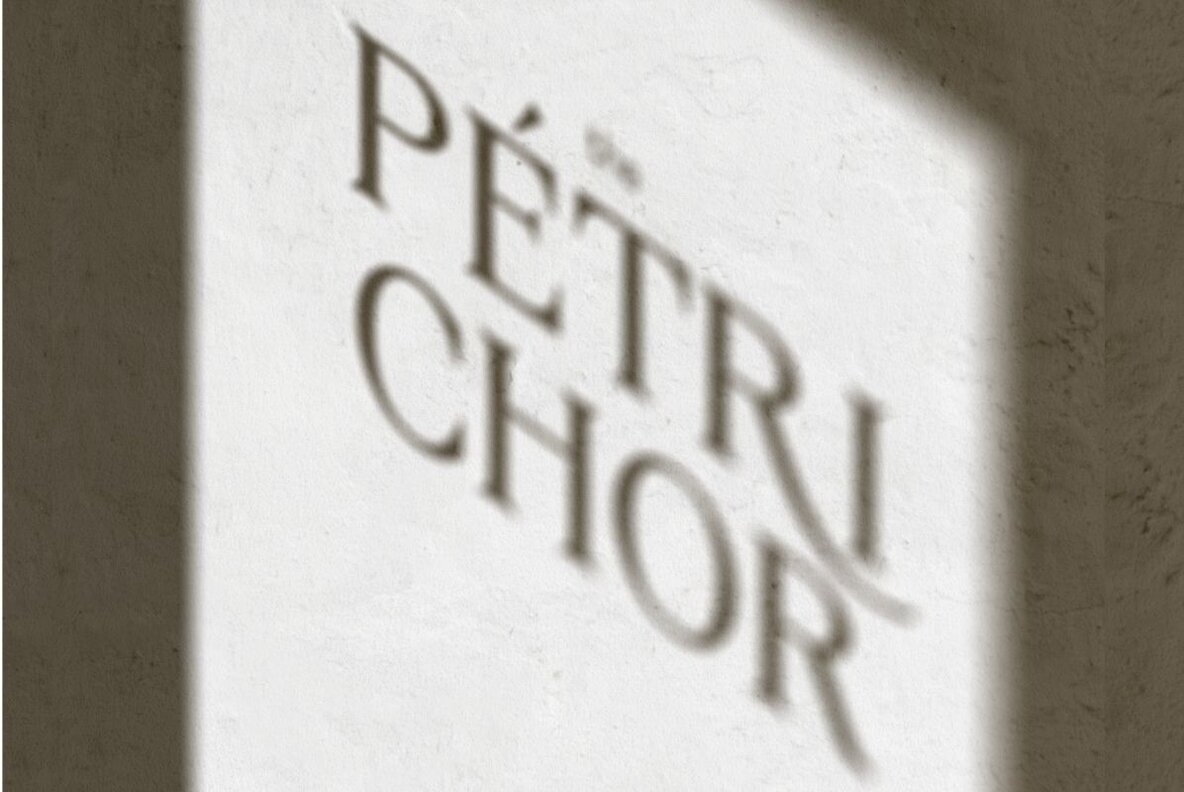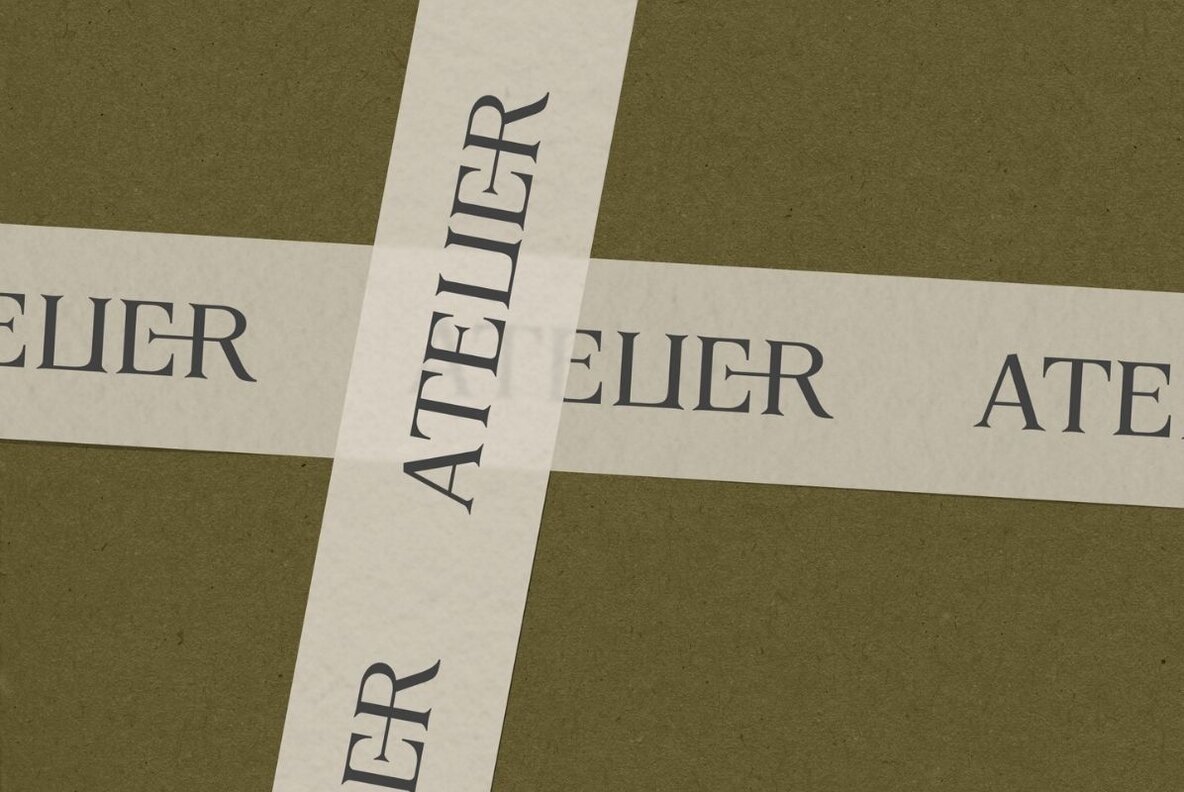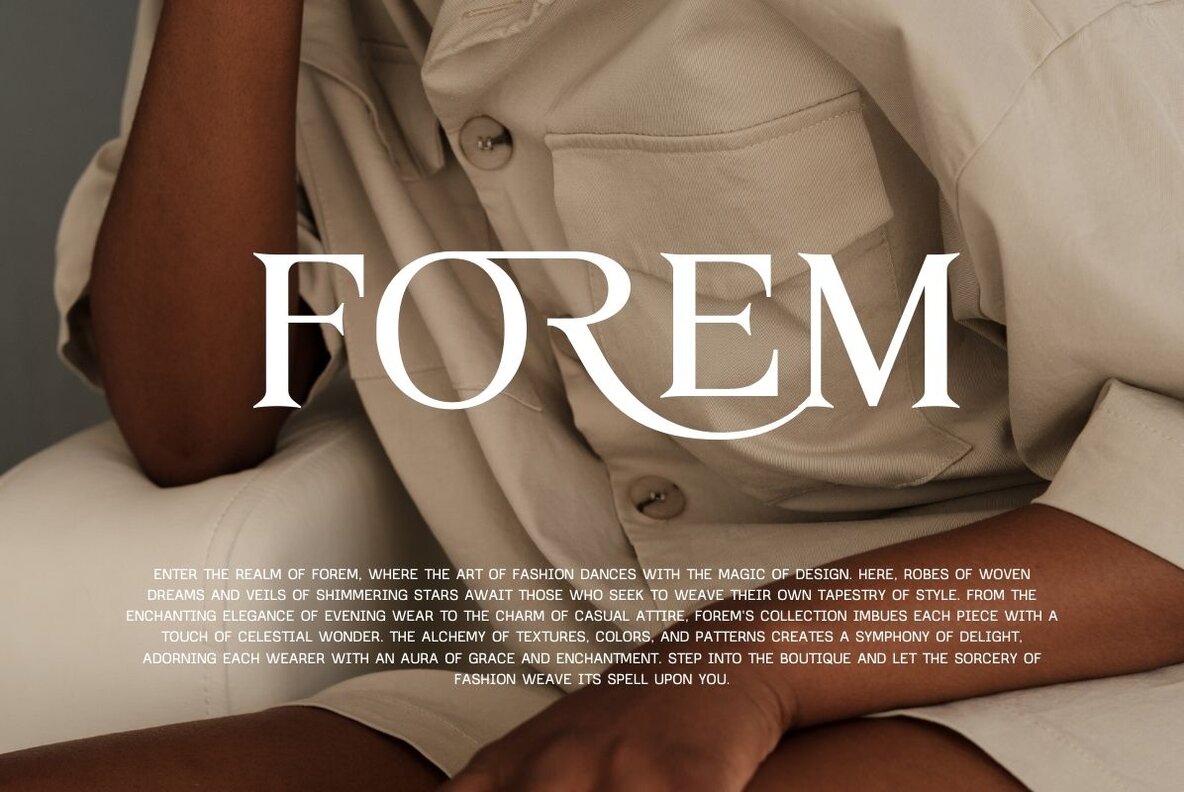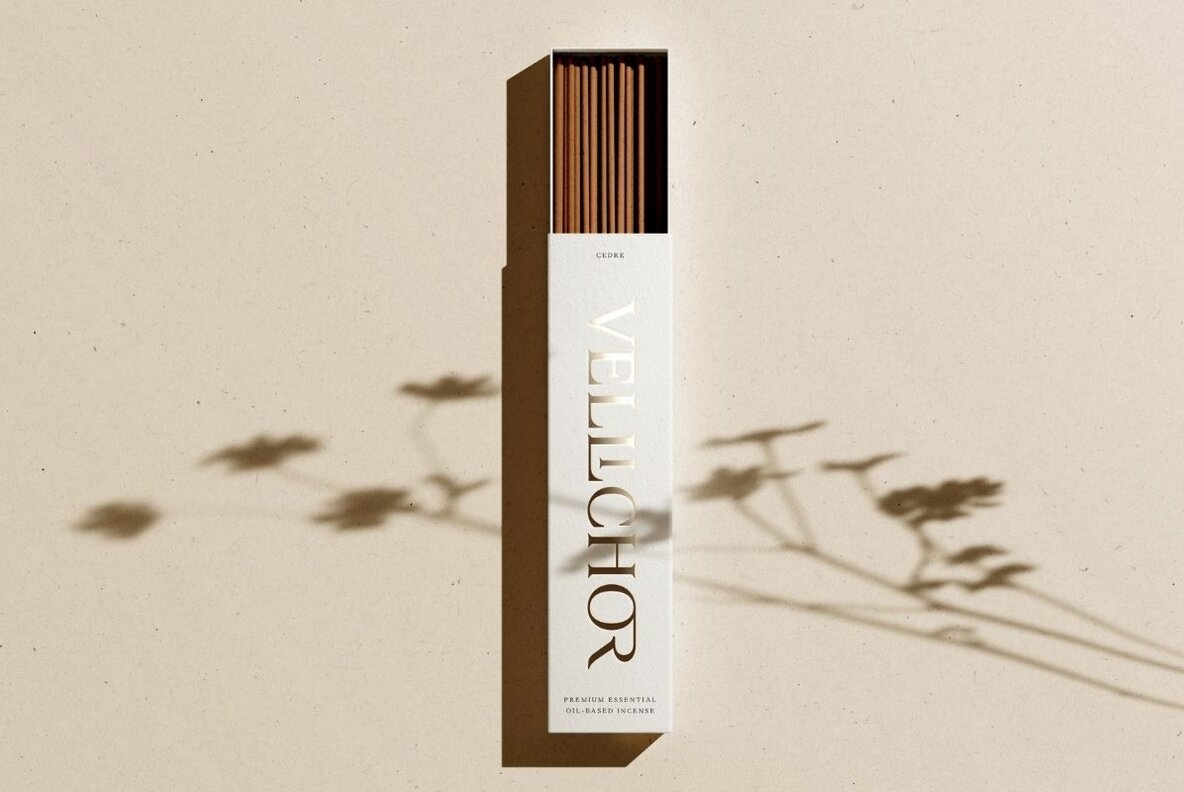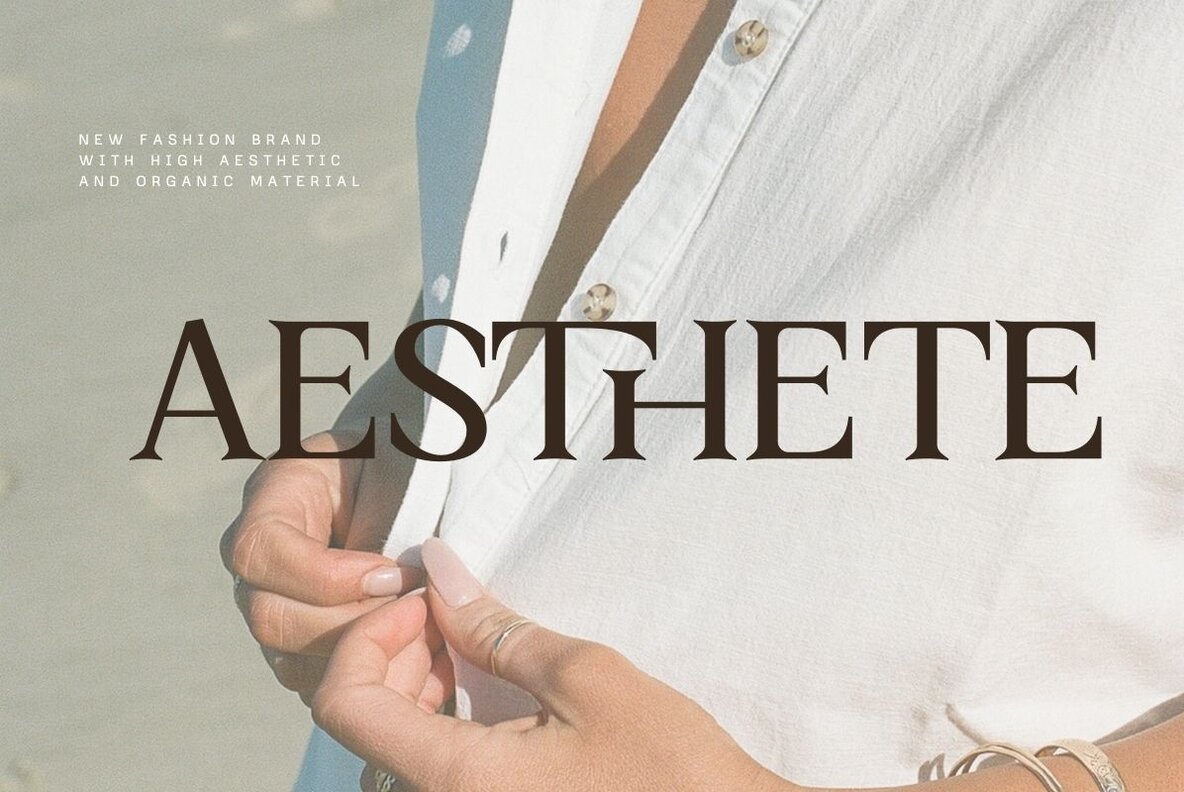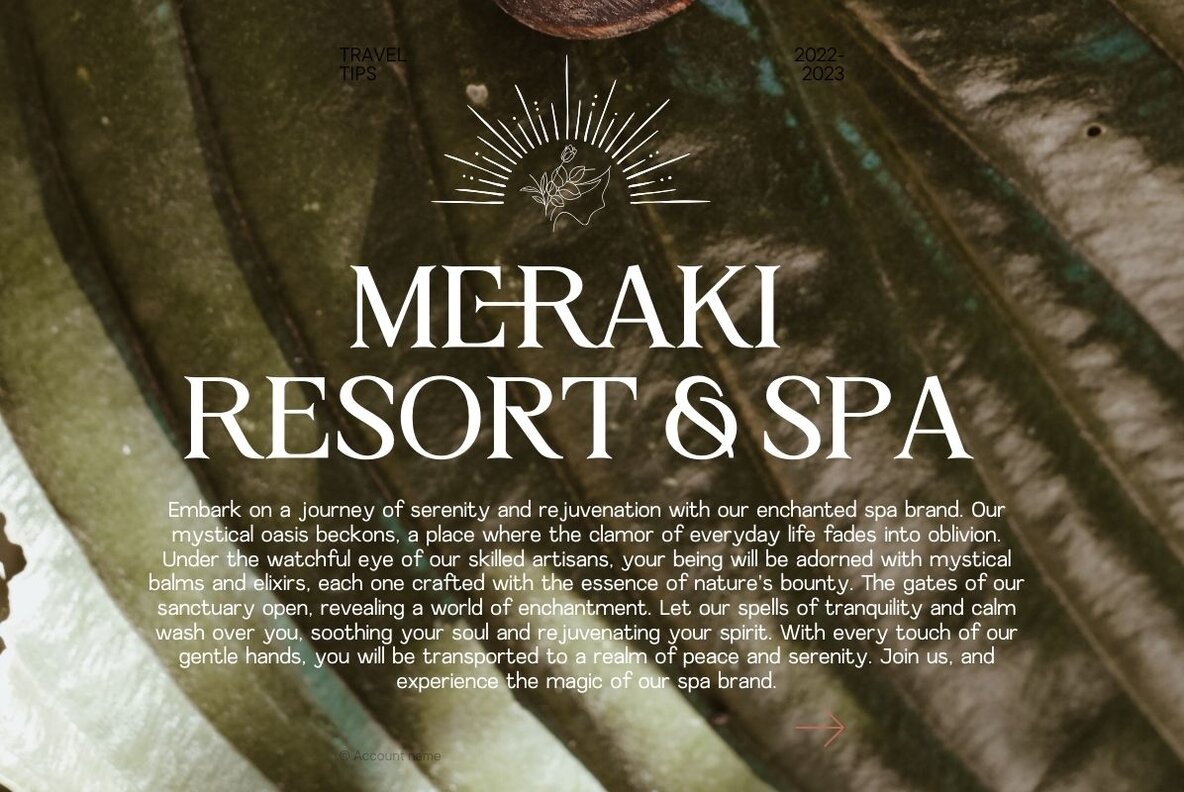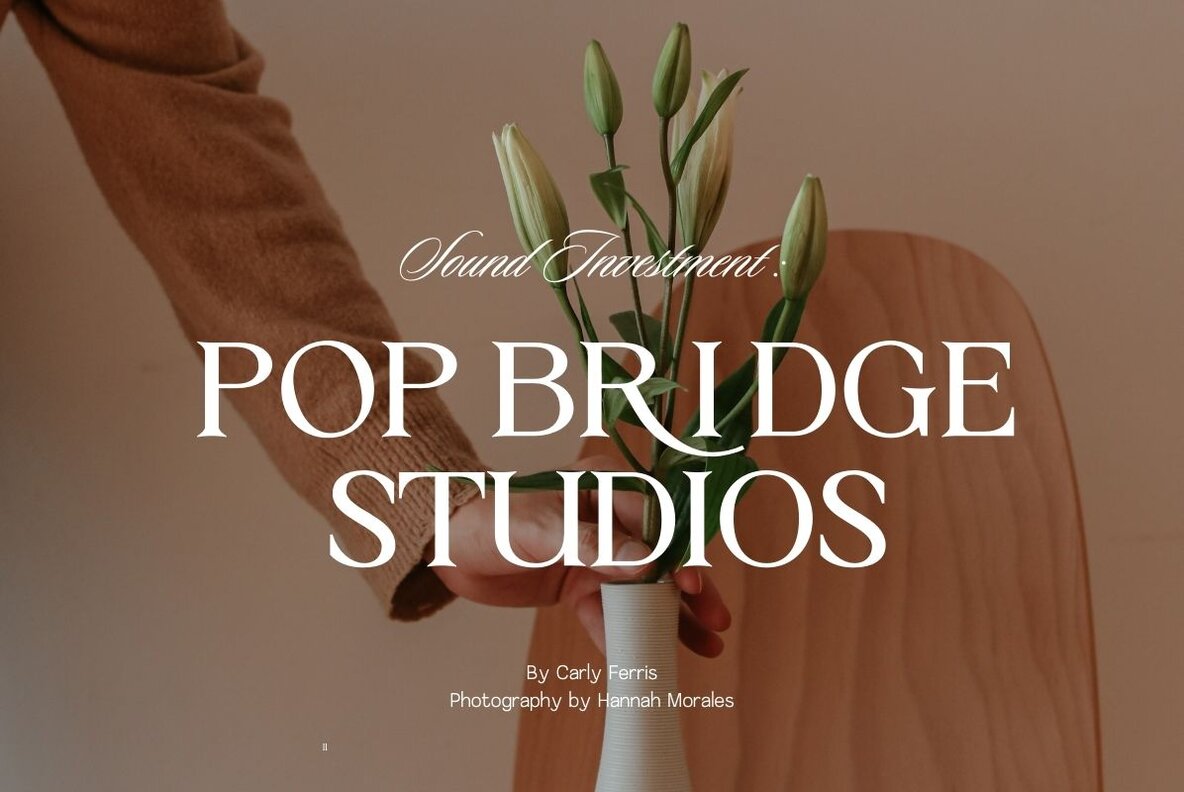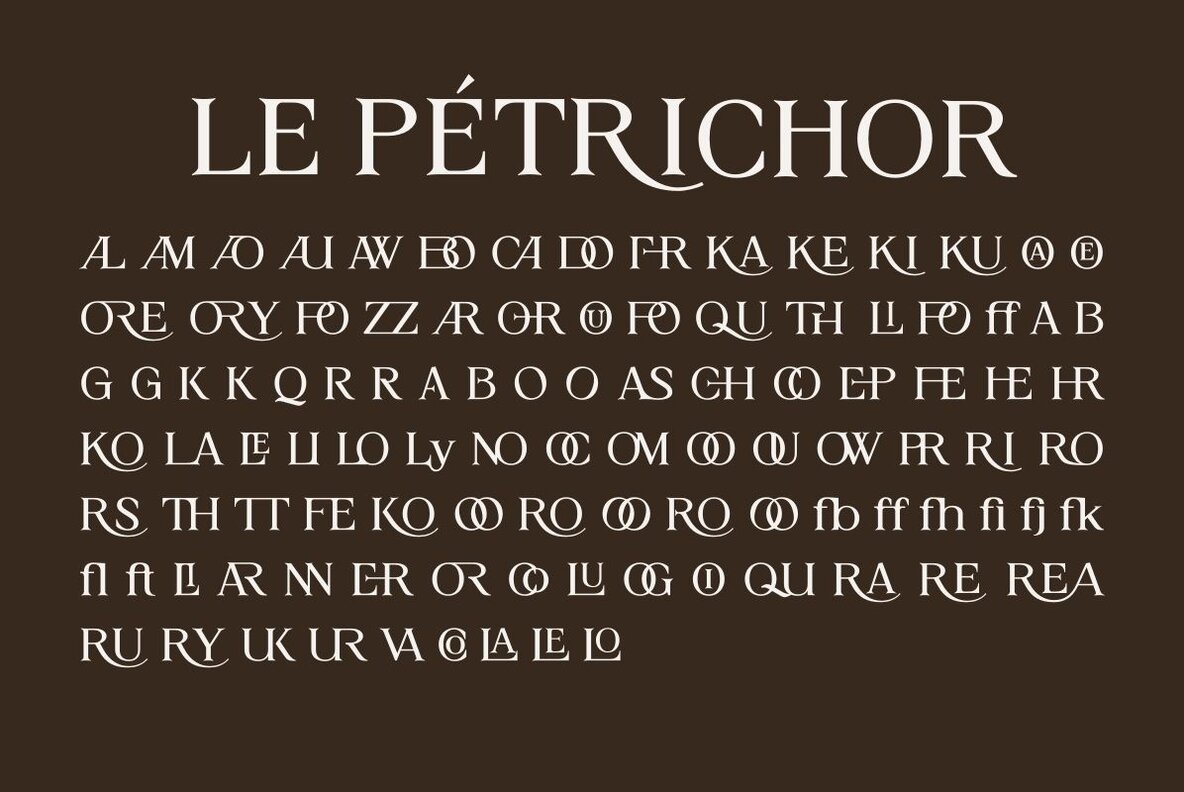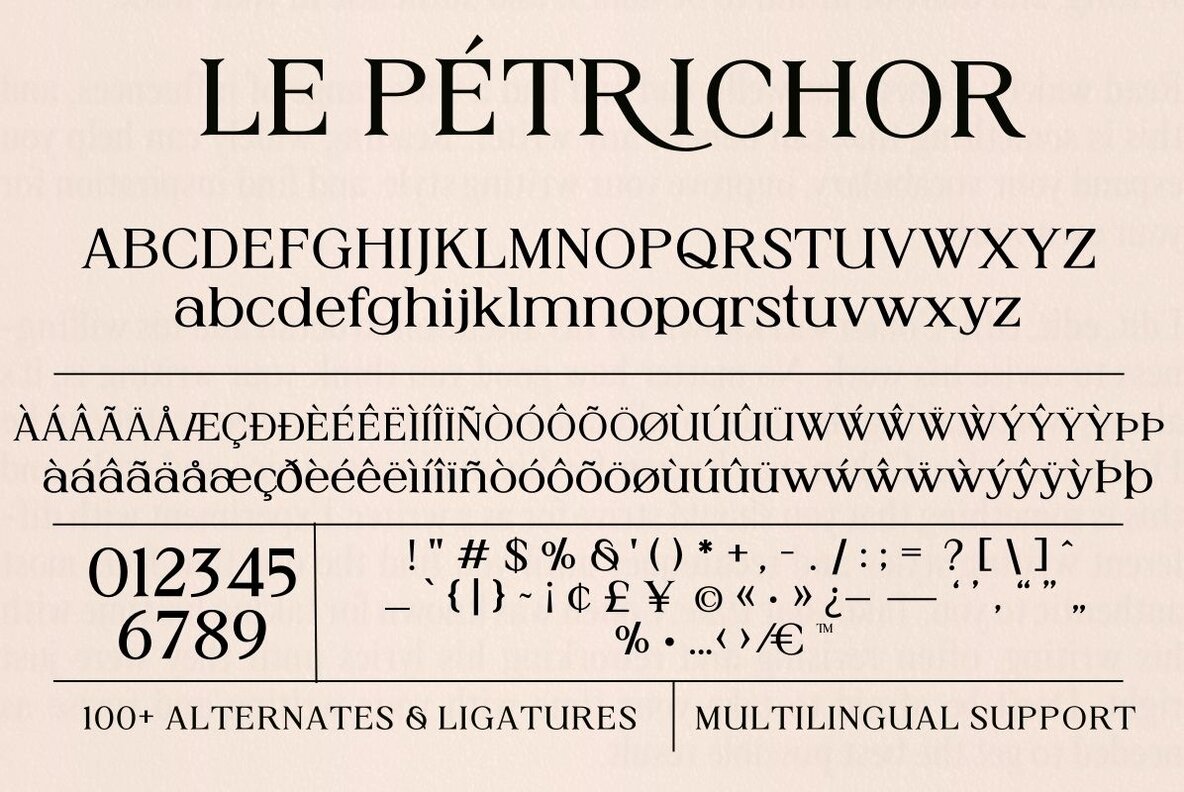
Le Petrichor Font
LE PETRICHOR Regular
Introducing Le Pétrichor, an elegant serif font exuding aesthetic sophistication. With over 100 alternates and ligatures, it is ideal for projects like wedding invitations, luxury branding, classic logos, premium packaging, and stylish fashion design. Le Pétrichor effortlessly enhances text in quotations, banners, logos, and more. Elevate your project with this font on titles, headers, business cards, menus, and invitations. This font provides multilingual support, making it a versatile choice for various linguistic needs. Le Pétrichor is compatible with a wide range of programs, including:Le Pétrichor: Elegant Aesthetic Serif Font
Versatile Design Applications
Comprehensive Language Support